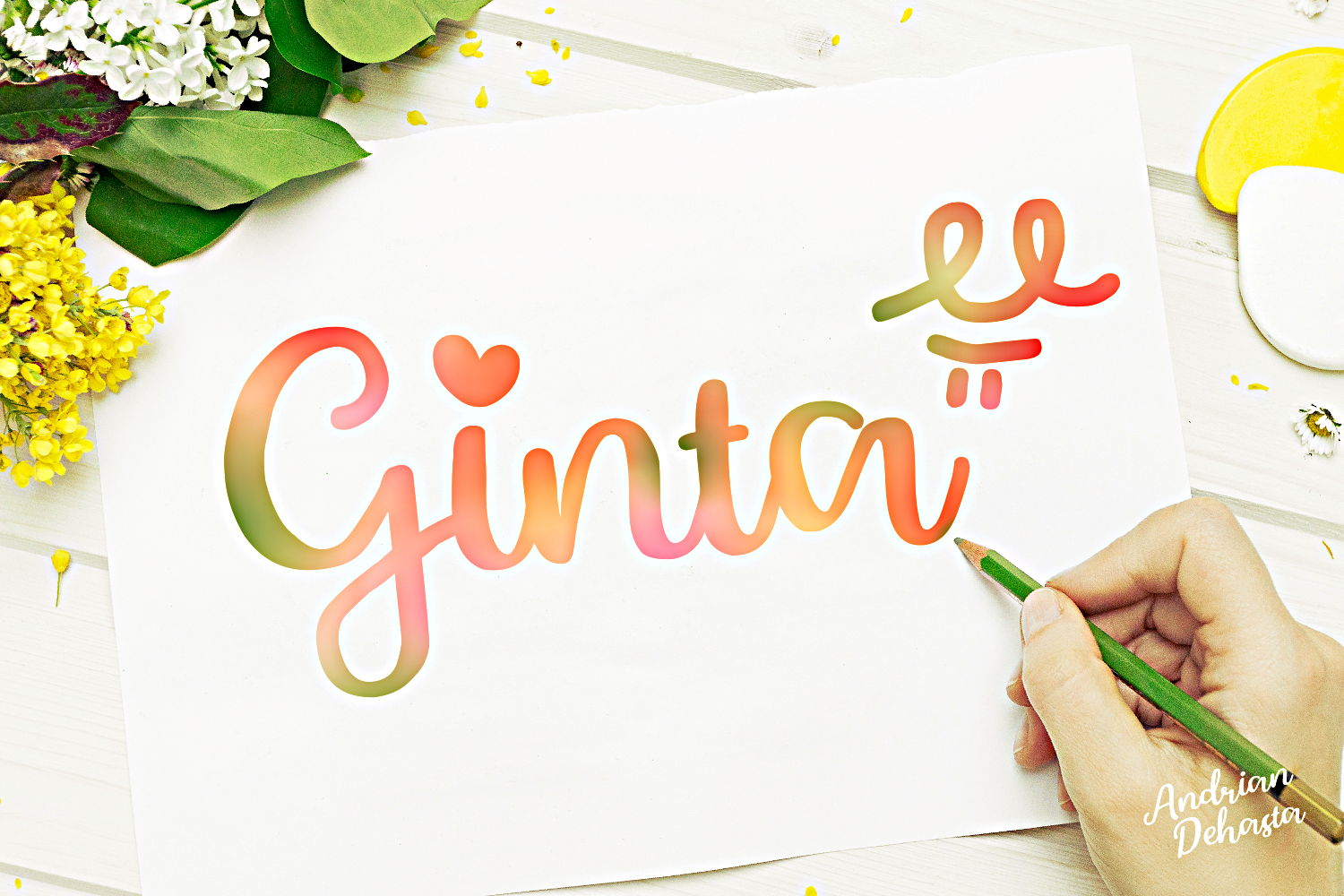
Ginta Font
About Ginta Font
Ginta is a fun and carefree script font, perfect for a wide range of uses!  This font is easy to read and looks great in romantic, editorial, or youthful designs.